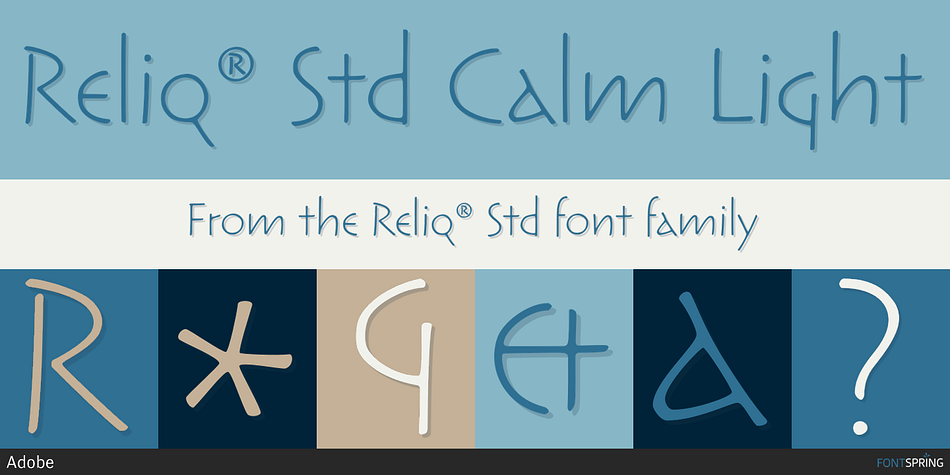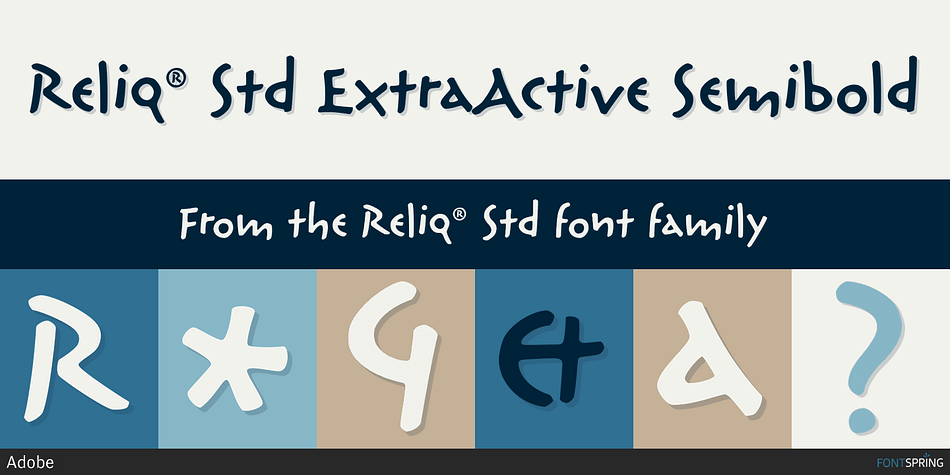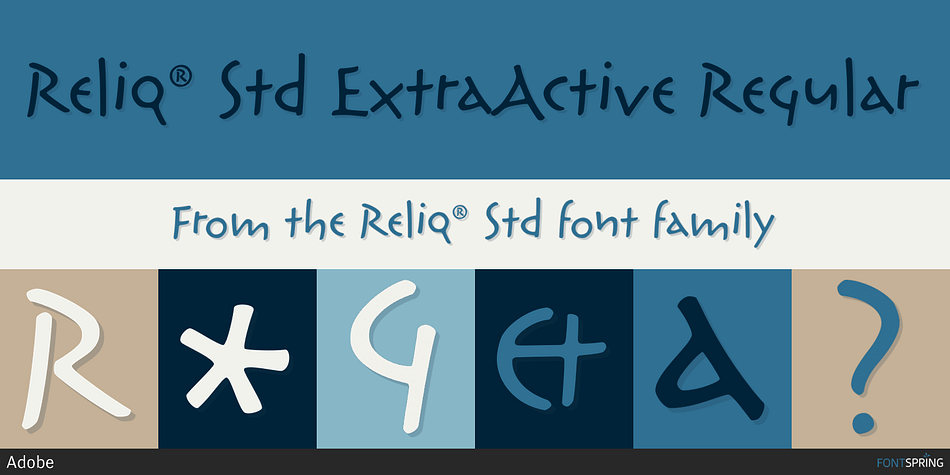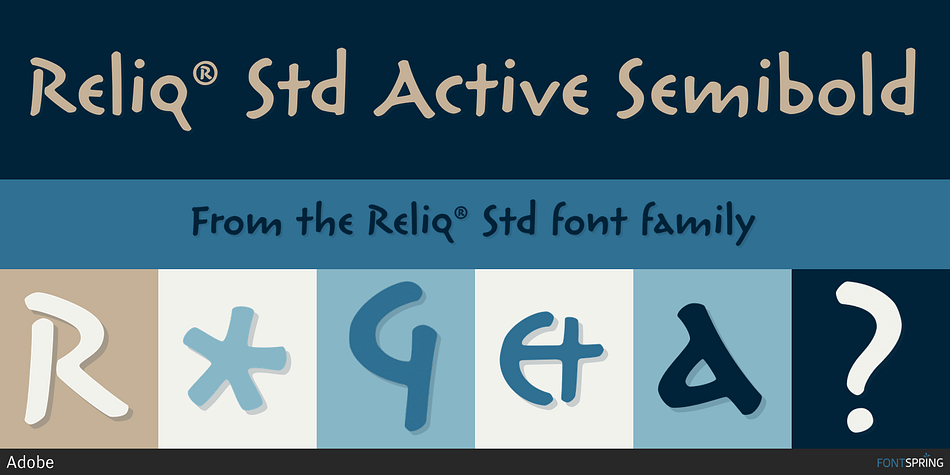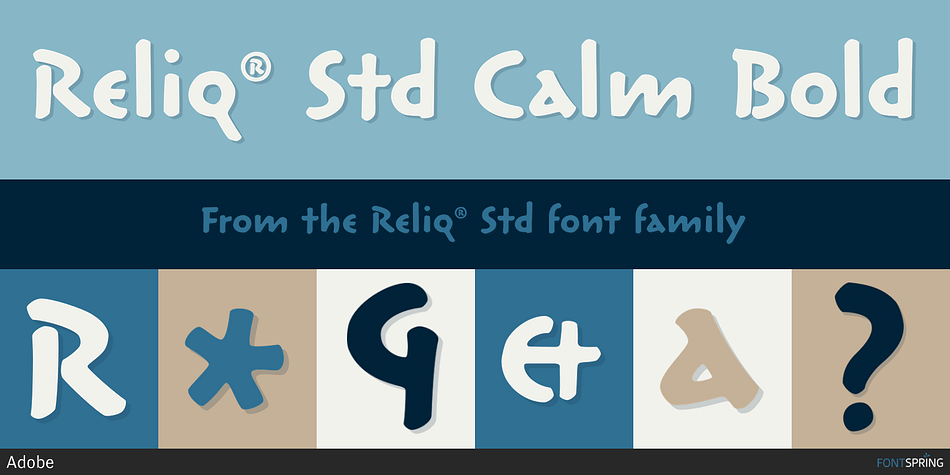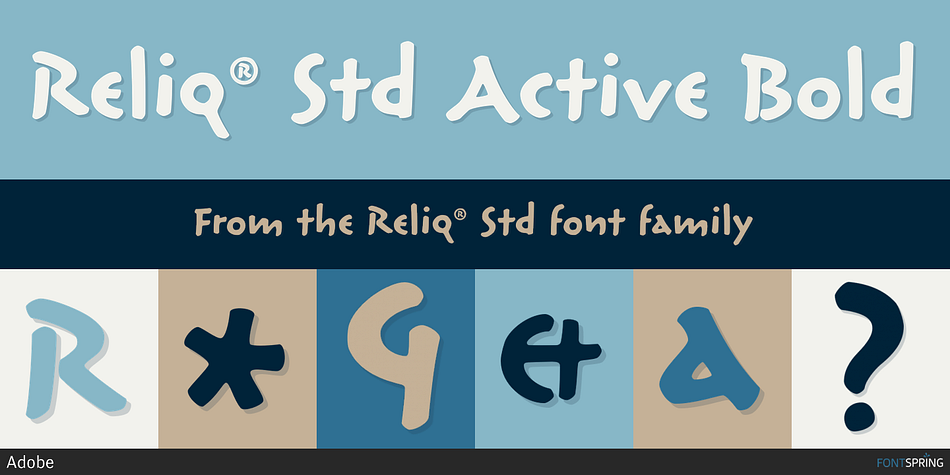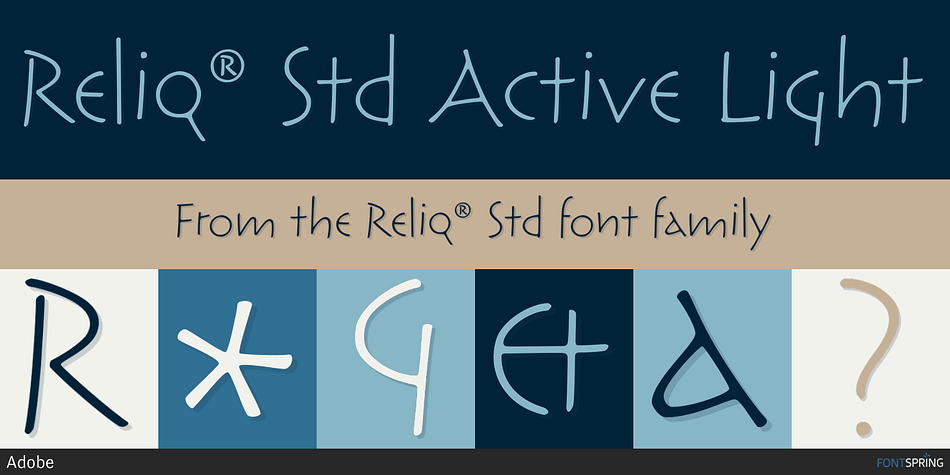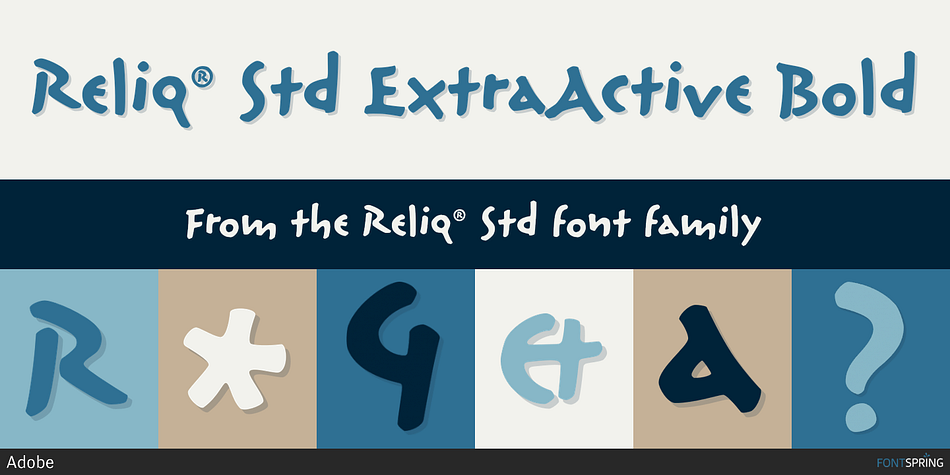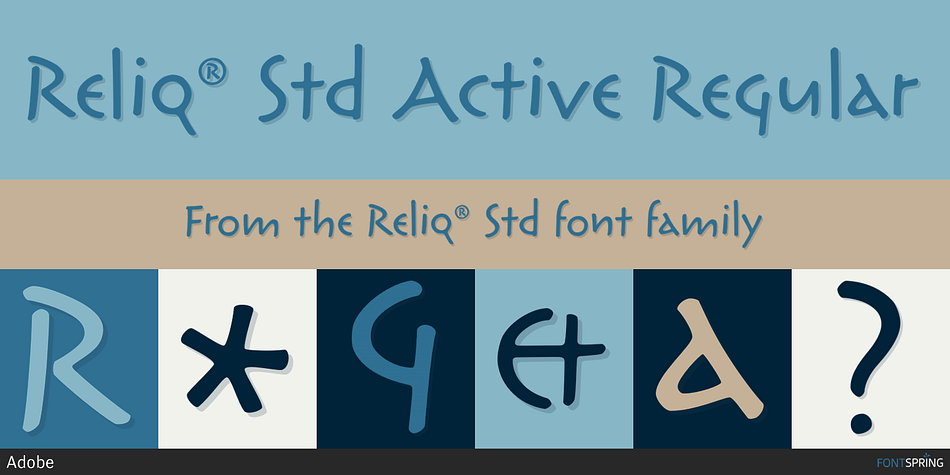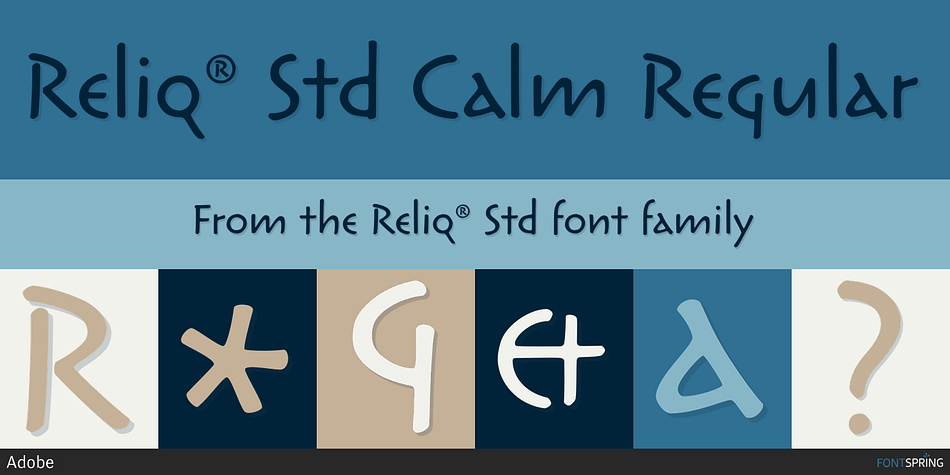
Reliq® Std is a hand drawn font family. This typeface has twelve styles and was published by Adobe.
Carl Crossgrove designed Reliq, a unique typeface reminiscent of early Greek and Roman graffiti. The Calm letters are positioned more or less normally along the baseline, while the Active letters, which are more irregular in both shape and alignment, give words and text an unfettered, almost primitive appearance.